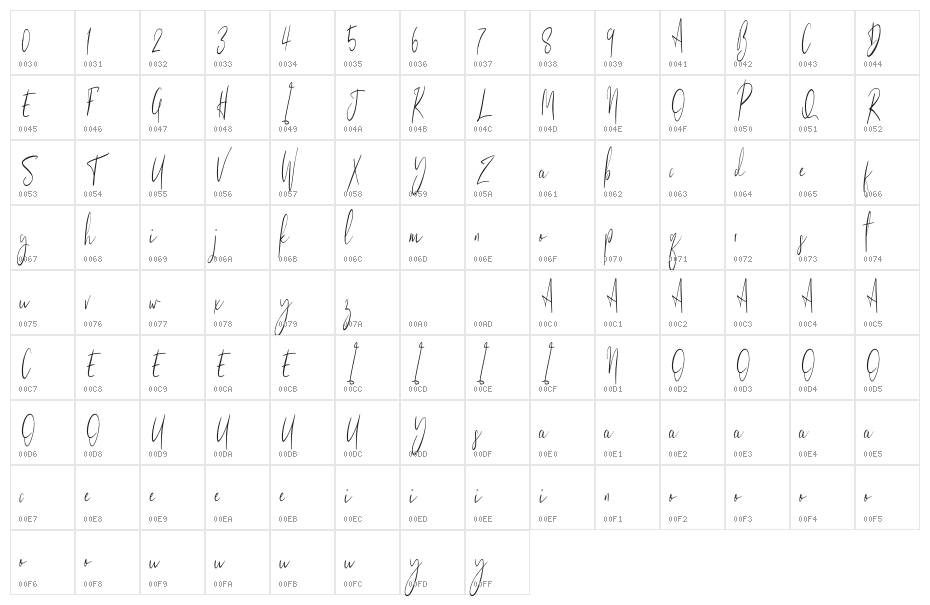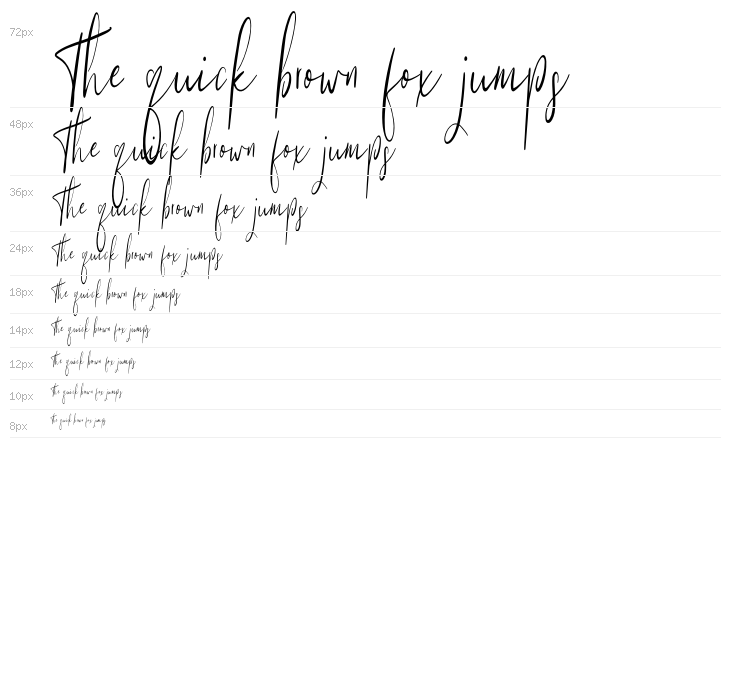
Sunlight Font
Sunlight Description
This font exudes a lively and dynamic character with its flowing, cursive style. The letters are elegantly elongated, giving a sense of movement and grace. The uppercase letters are particularly tall and slender, with distinctive loops and curves that add a touch of sophistication. The lowercase letters maintain a consistent flow, complementing the uppercase with their smooth and connected strokes. The numerals are clear and legible, maintaining the same fluid style. The special characters are uniquely styled, fitting seamlessly into the overall design. This font is perfect for projects that require a personal, handwritten touch, offering both elegance and readability.
| Use Case | Logos, Headlines, Artistic projects |
| Proposed Projects | Ideal for wedding invitations, greeting cards, personal branding, and artistic projects. |